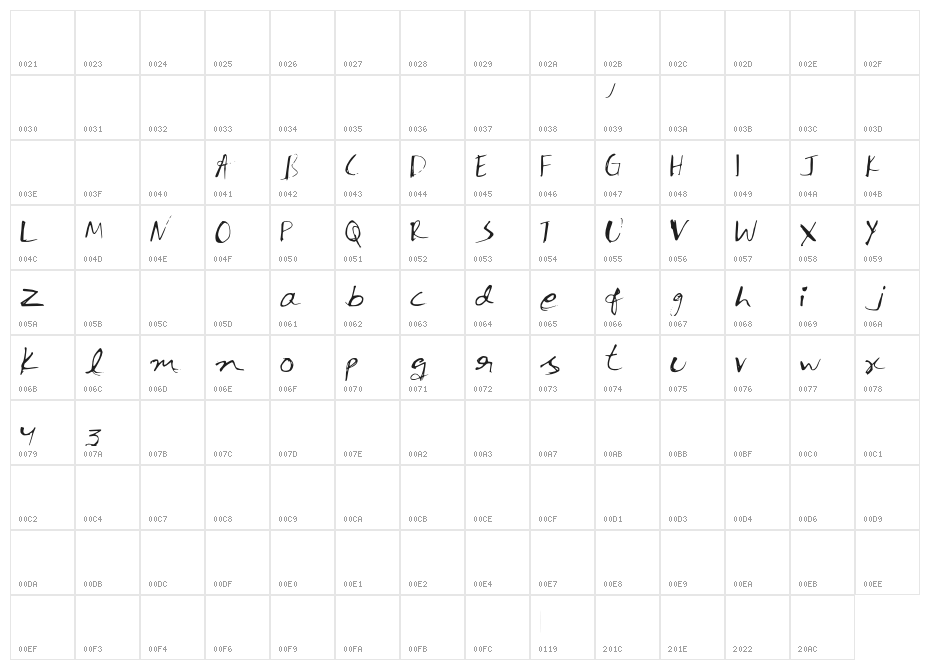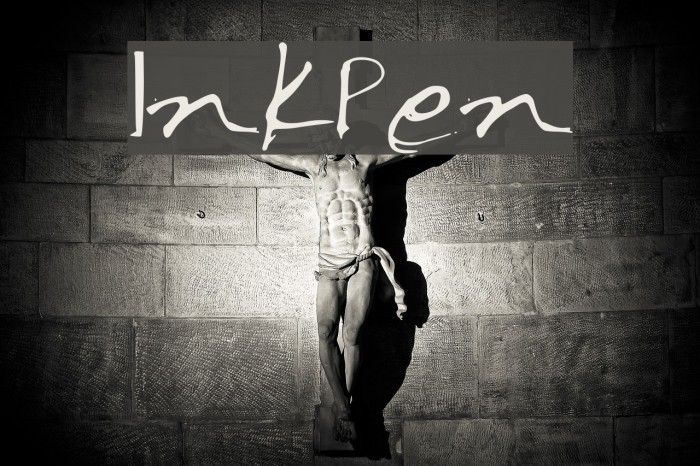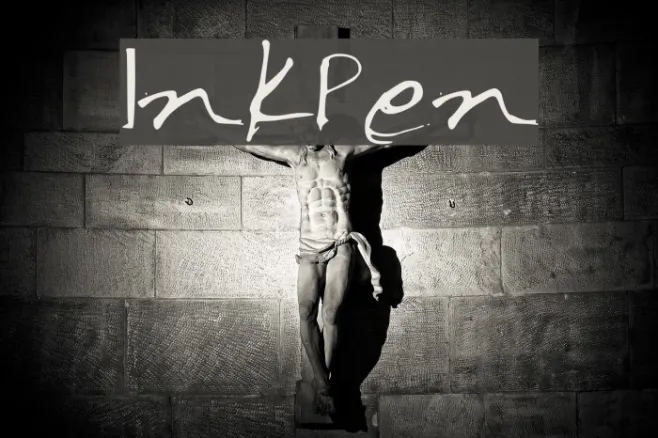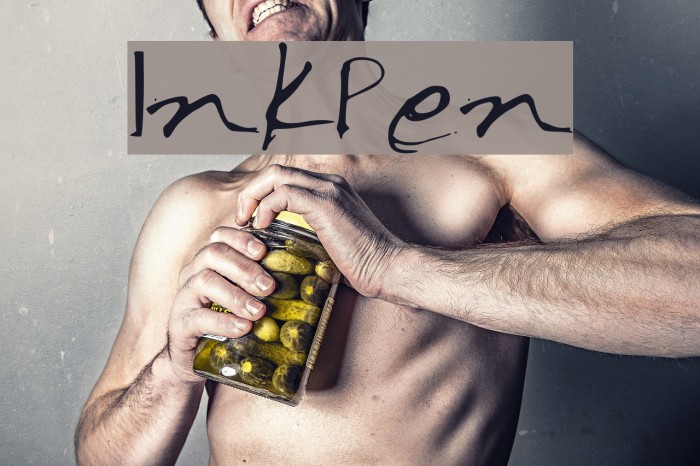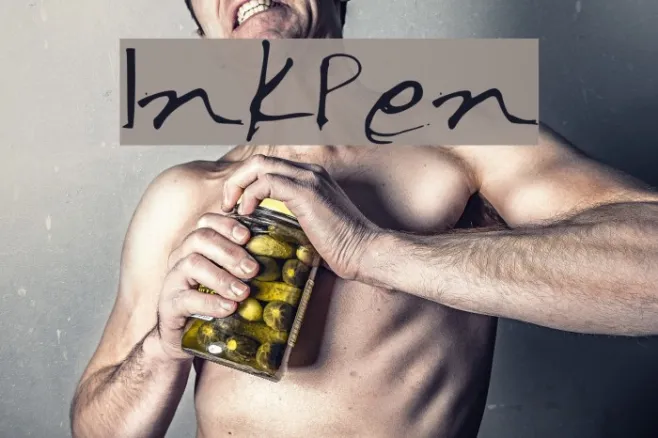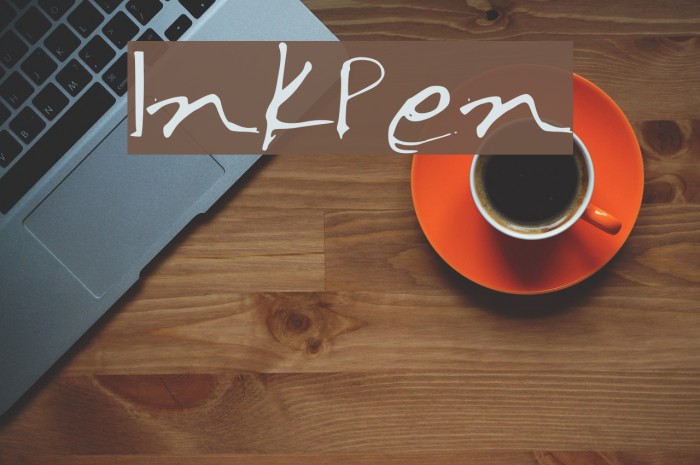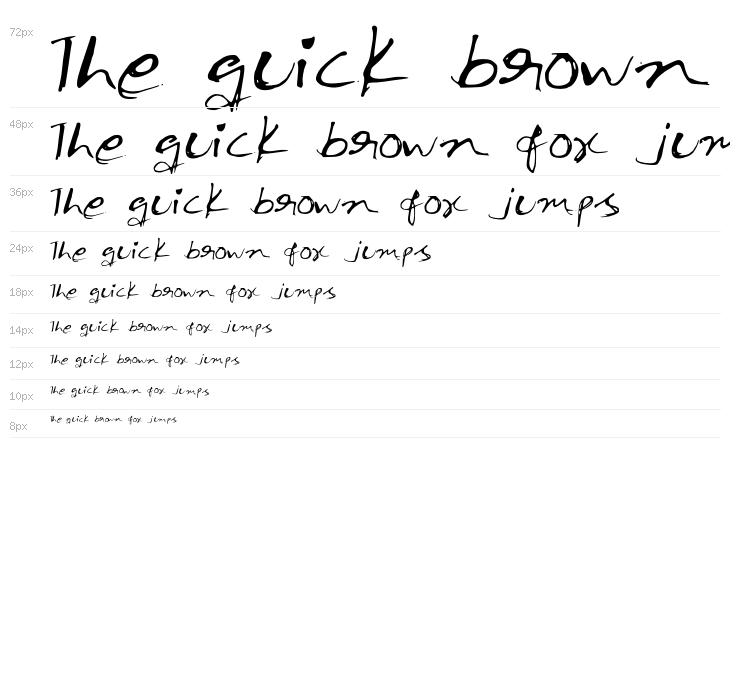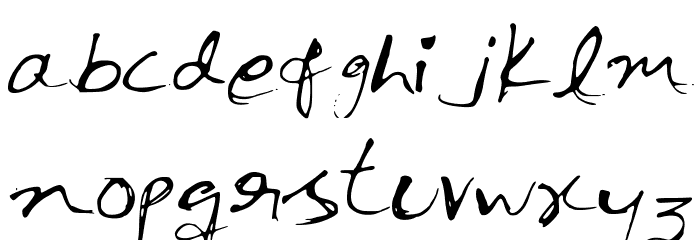
InkPen Font
InkPen Description
This font exudes a raw, expressive style reminiscent of ink pen strokes. Each character is crafted with a sense of spontaneity and fluidity, capturing the essence of handwritten notes. The uppercase letters are bold and dynamic, while the lowercase letters maintain a consistent flow, adding to the font's organic feel. The strokes vary in thickness, creating a lively contrast that enhances its artistic appeal. The font's irregularities and unique character shapes contribute to its distinct personality, making it ideal for projects that require a personal touch.
| Overall Style | Artistic |
| Proposed Projects | Ideal for artistic projects, personal branding, invitations, and creative posters. |